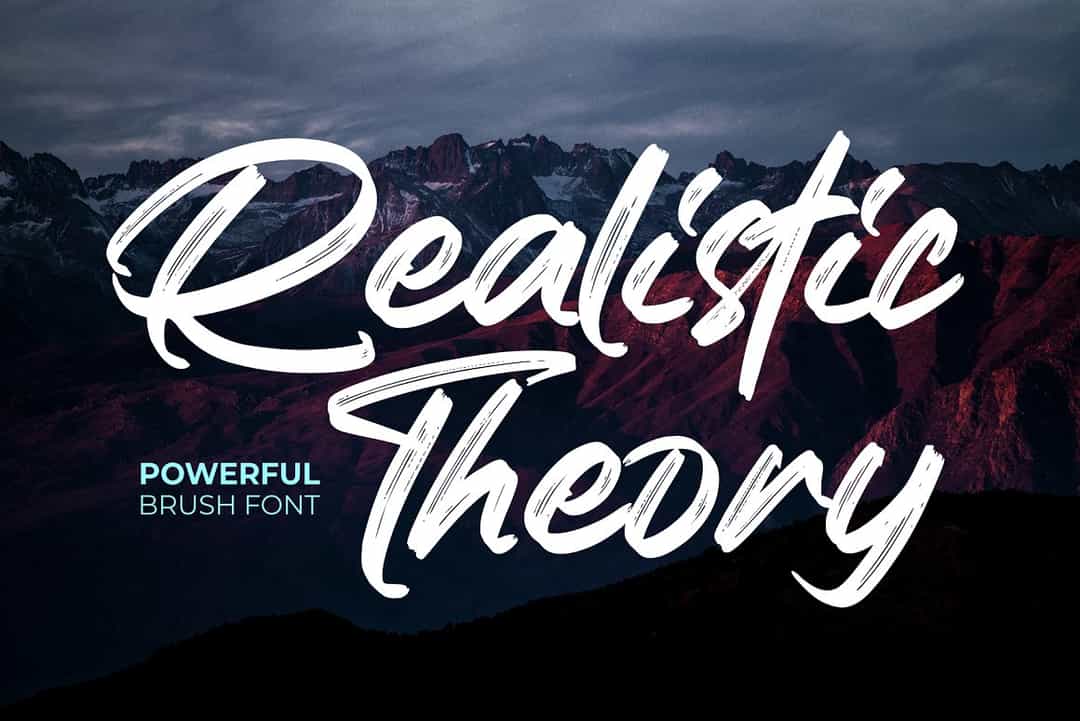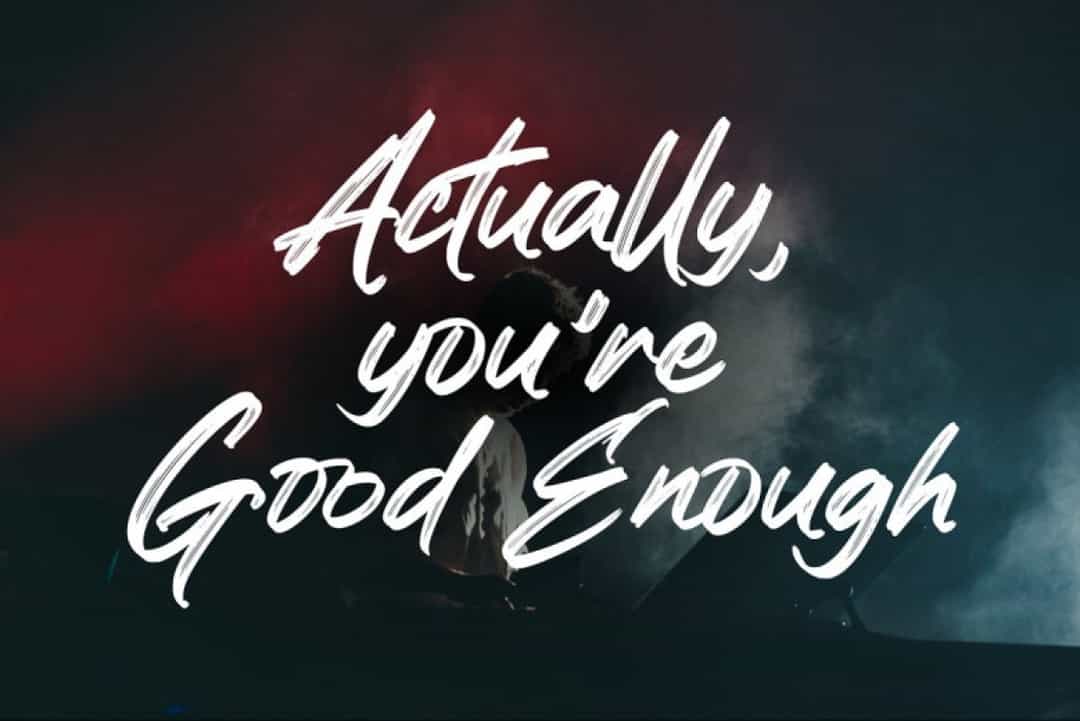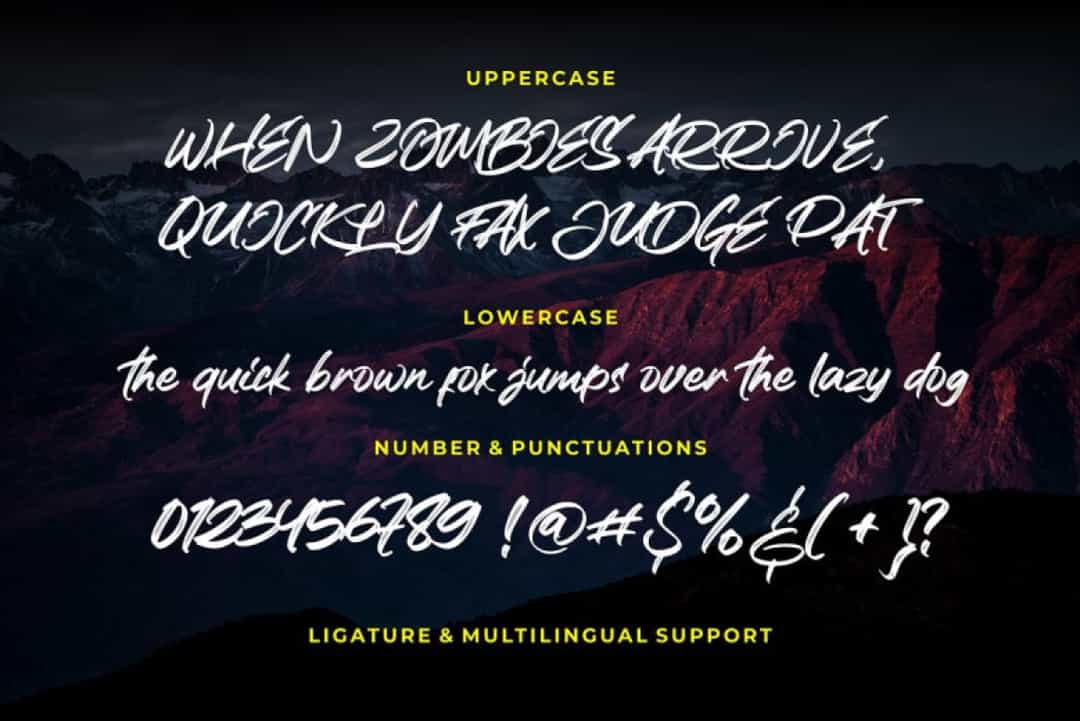
Realistic Theory is an exquisite hand-drawn brush type which blends beautiful curves with an urban feel; creating the most stylish brush font that will add an attractive design element to your logo, brand images, handwritten quotations, packaging of products merchandise, social media posts or website font.